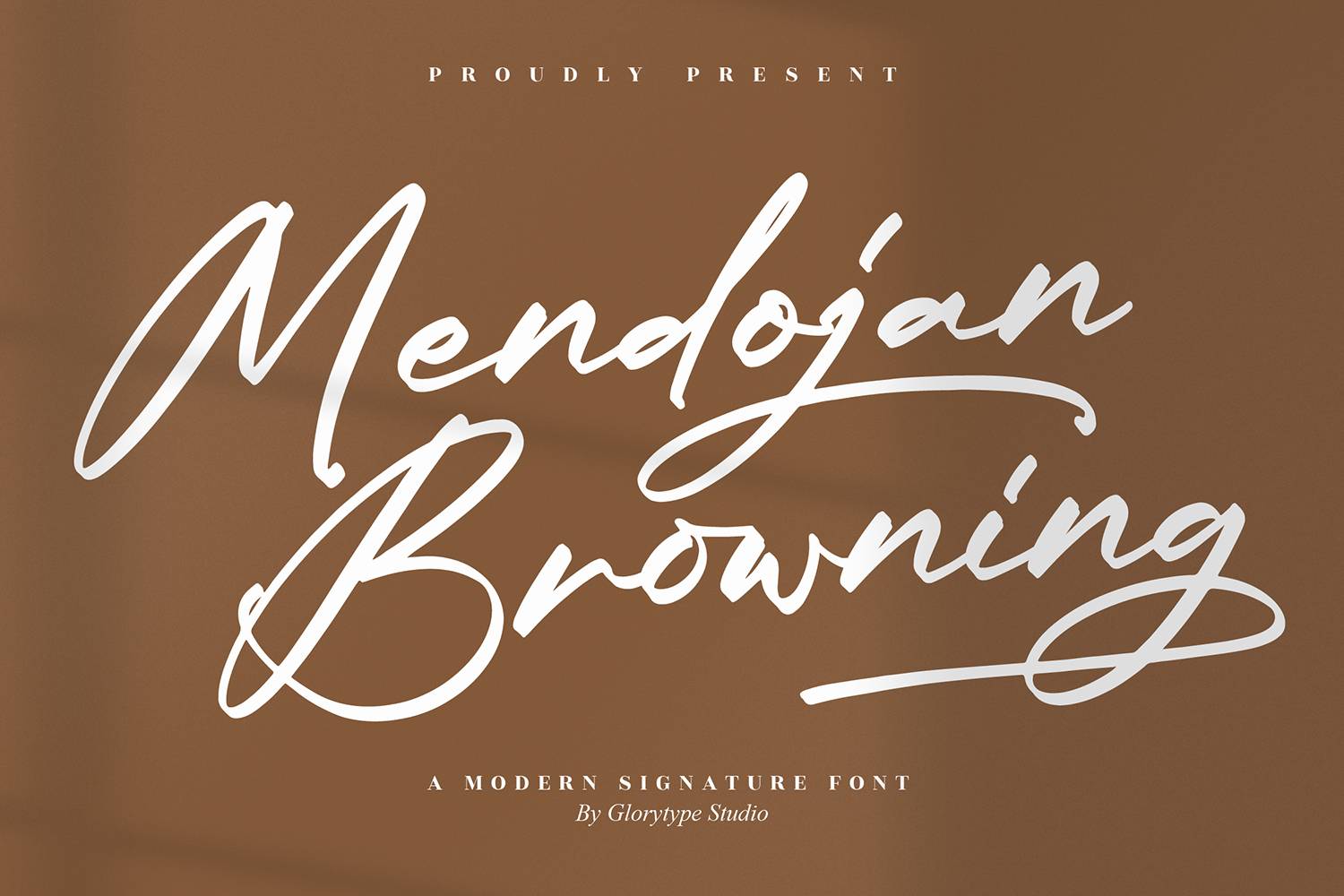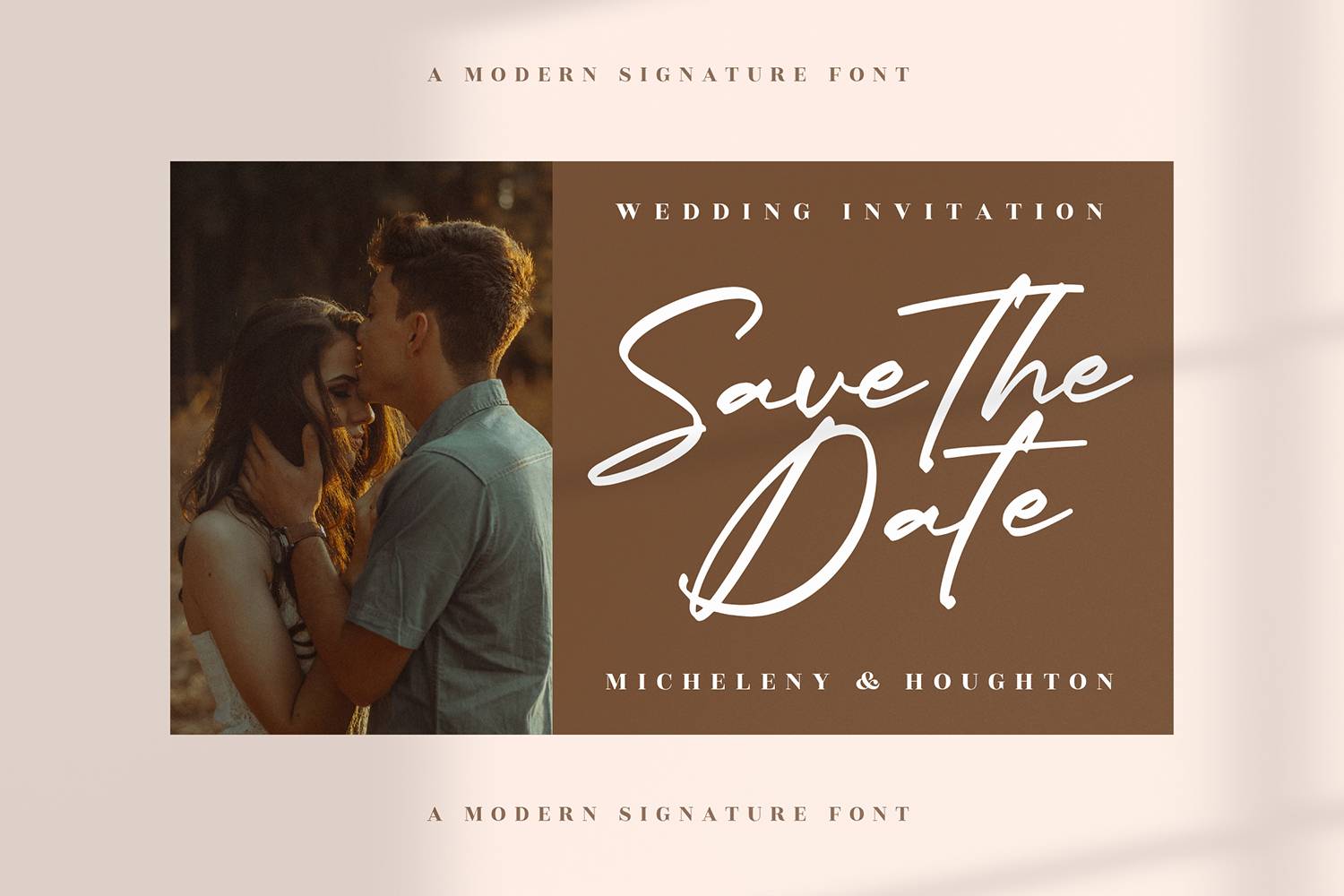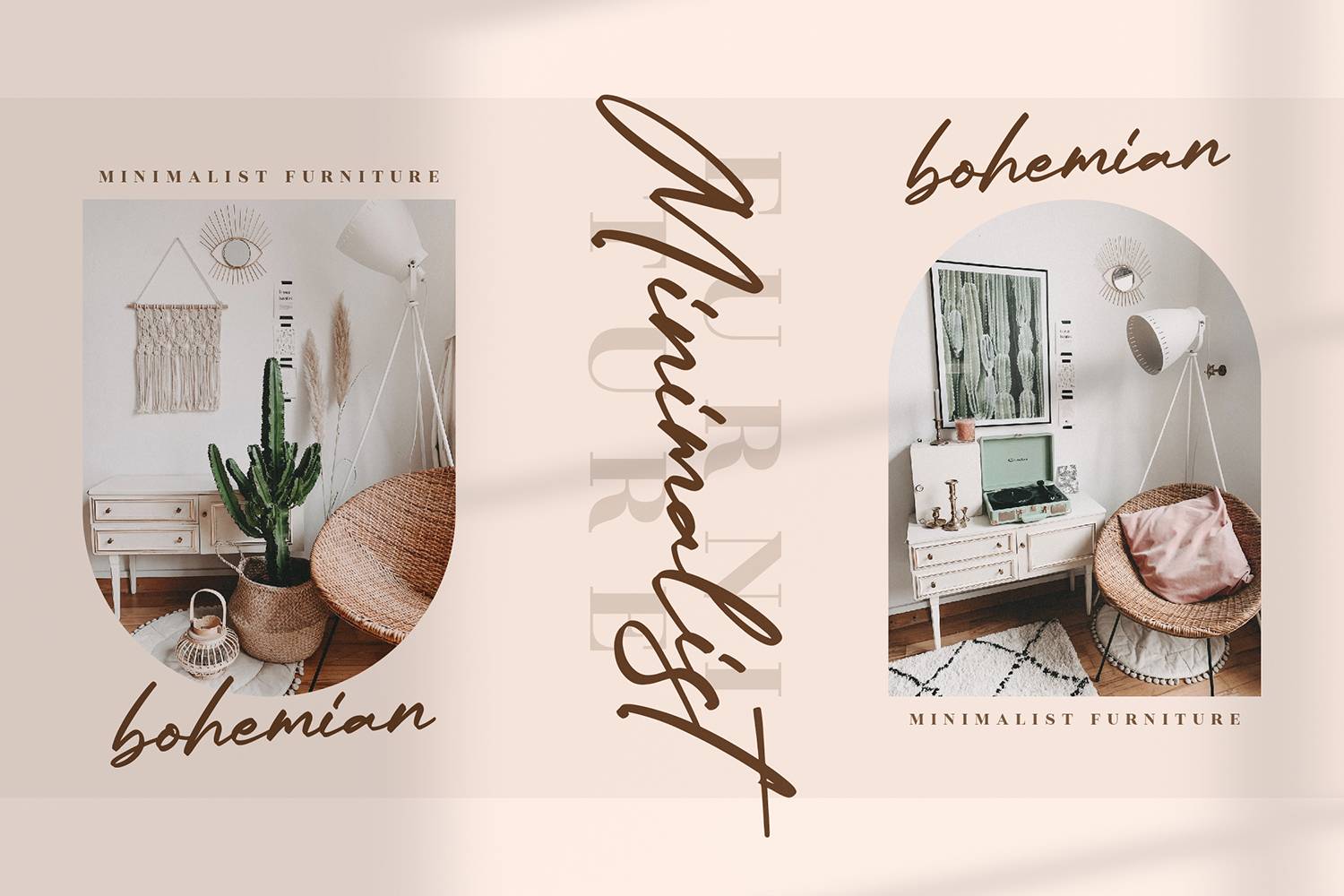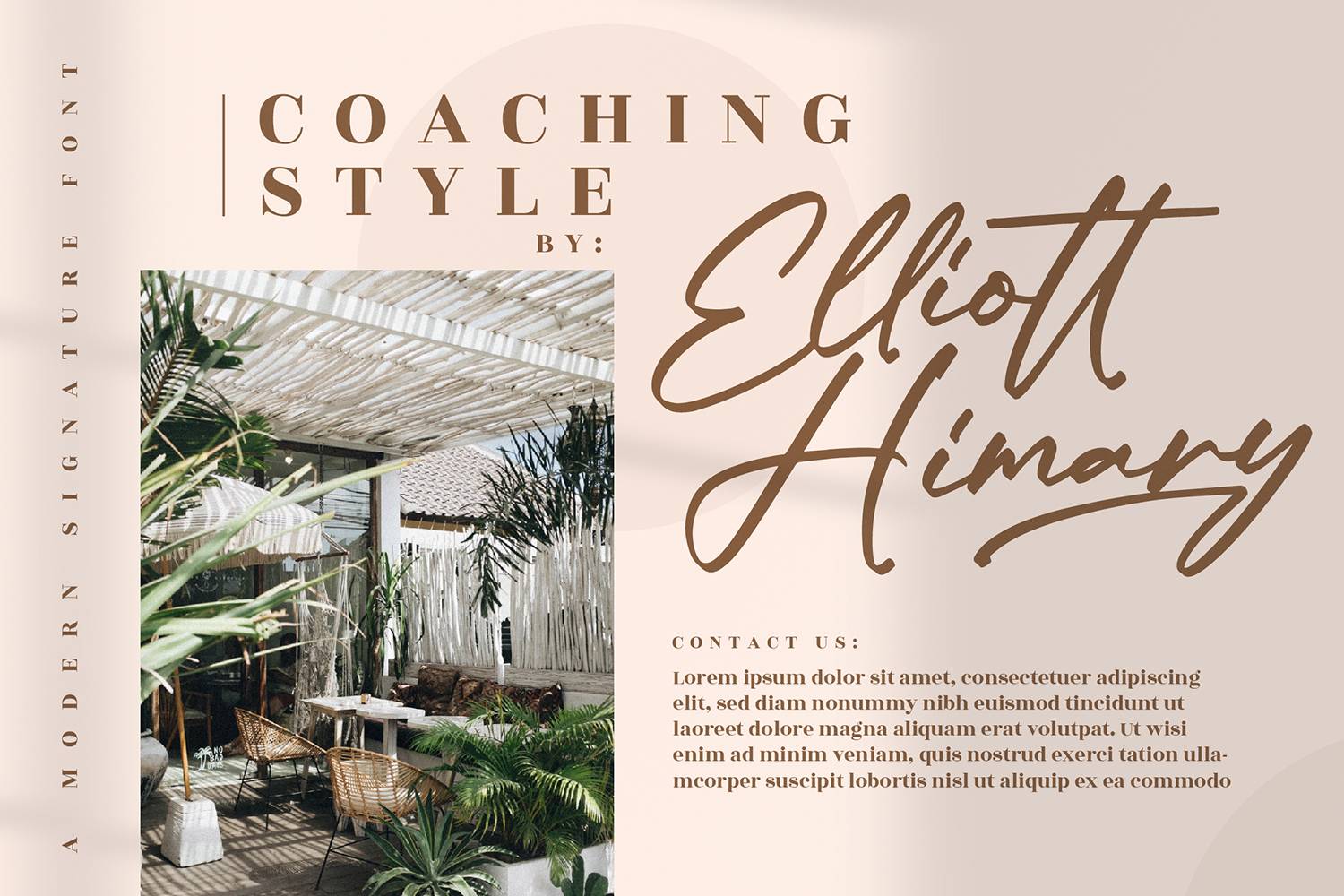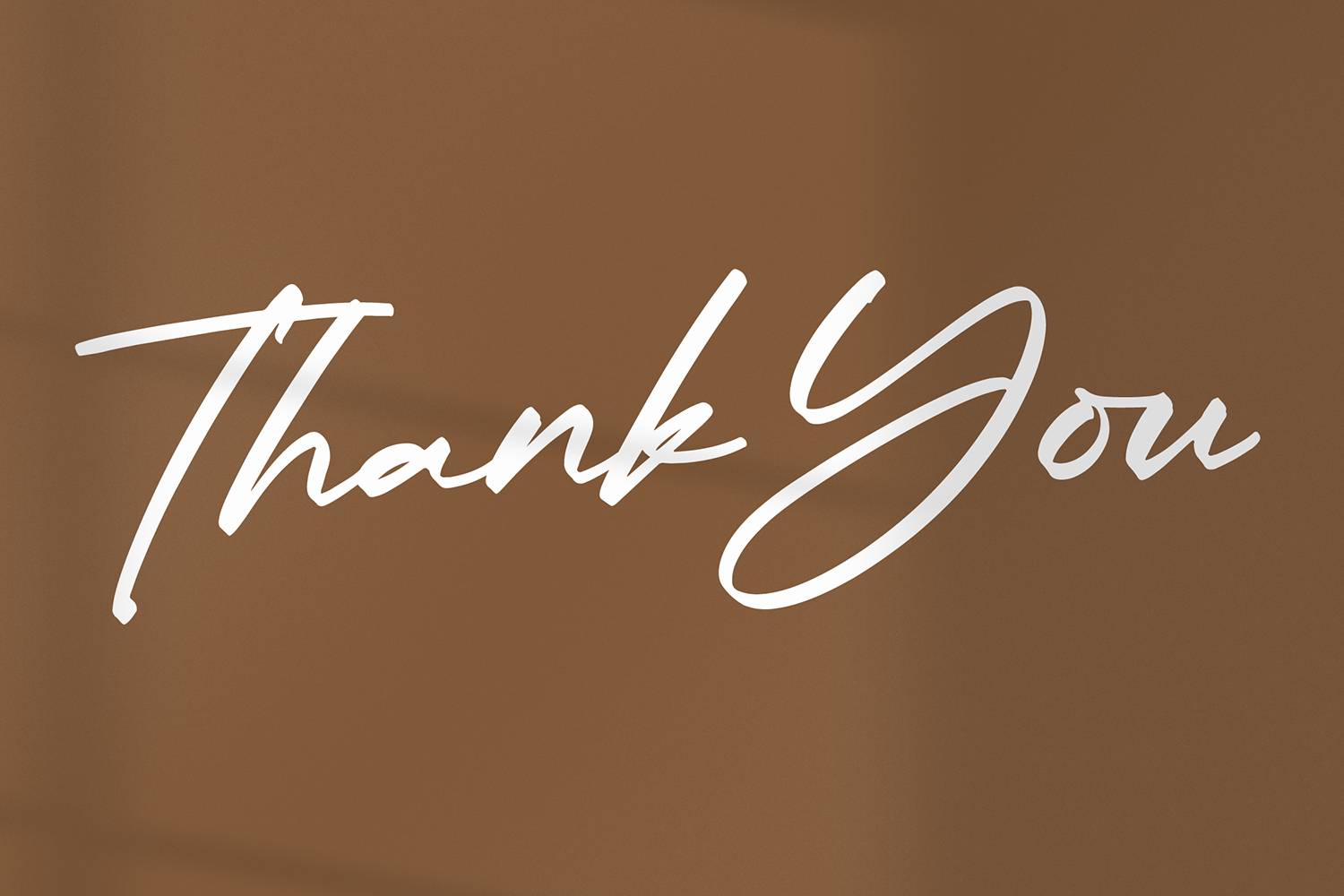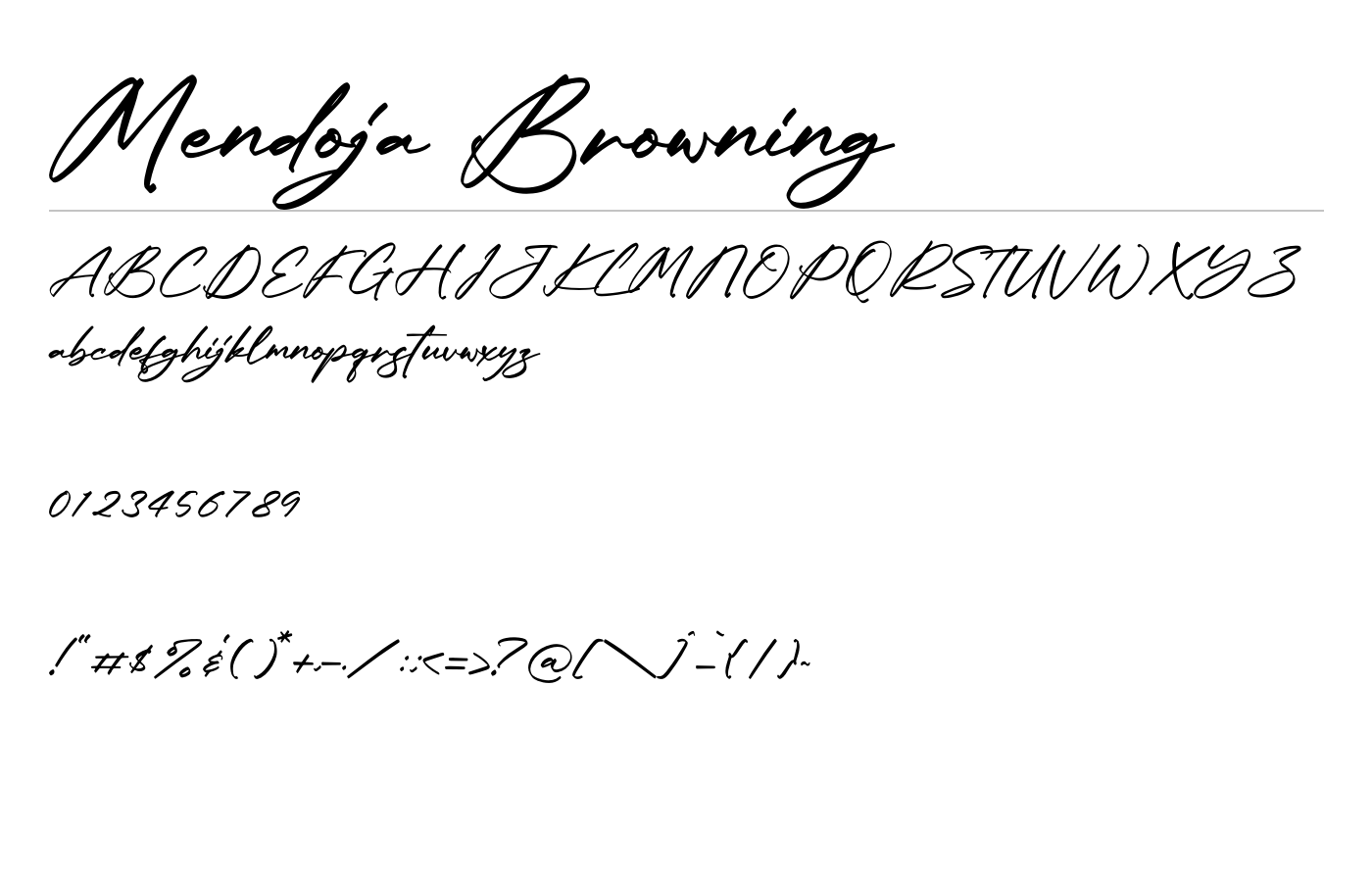
Mendoja Browning is a graceful script font featuring elegant, flowing strokes that mimic natural handwriting with a smooth and slightly casual feel. Its slender, connected letterforms and moderate contrast make it perfect for adding a personal and stylish touch to branding, invitations, and creative projects that seek a warm yet sophisticated vibe. This font works well in headlines, logos, and designs where a refined handwritten look is desired.
Mendoja Browning Font
About Mendoja Browning Font
| Font family | Mendoja Browning Font |